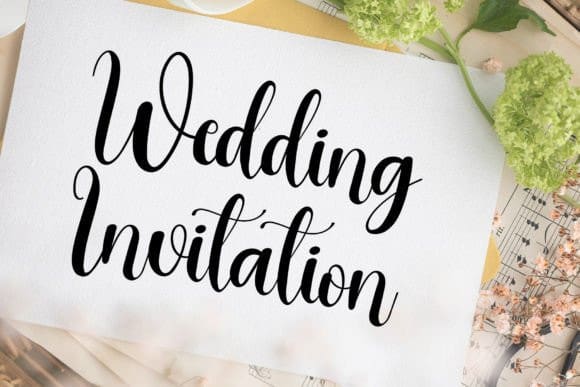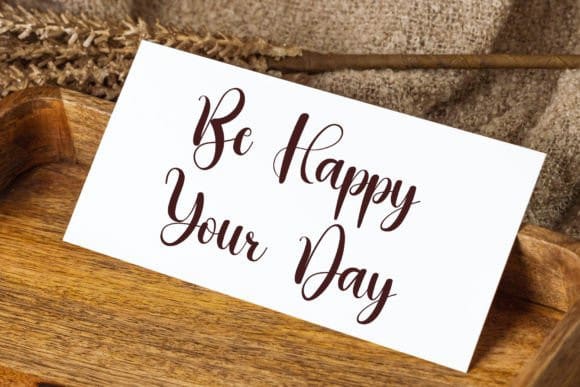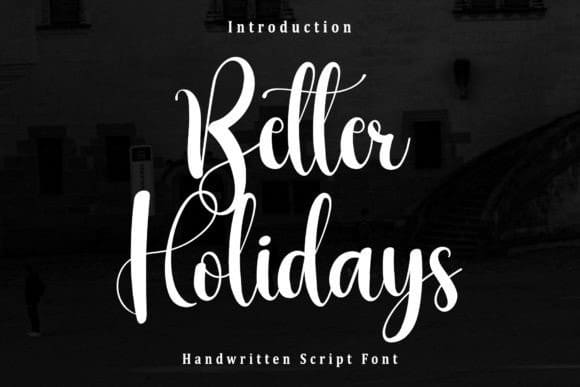
Better Holidays Font
Better Holidays Font, is a neat and beautiful handwritten font described by an elegant touch, perfect for your favorite projects. Fall in love with its incredibly distinct and timeless style, and use it to create spectacular designs!